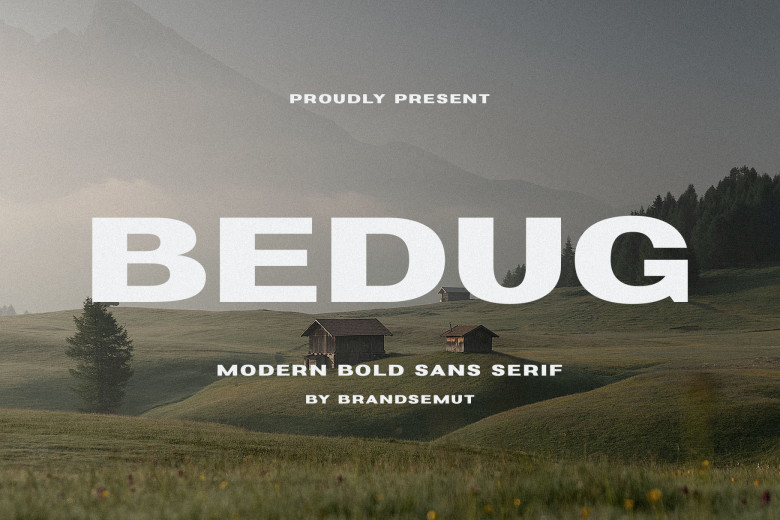
Bedug Font
Introducing Bedug, a modern bold sans serif font that is best suited to be used as the display. Whether it’s for the headline of the blog, magazine, and fun-related branding ideas; you will always find Bedug’s fun vibe perfect for it. Bedug has a Strong, clean style with smooth curves that make every project look fun and original.
Bedug Sans Serif Font